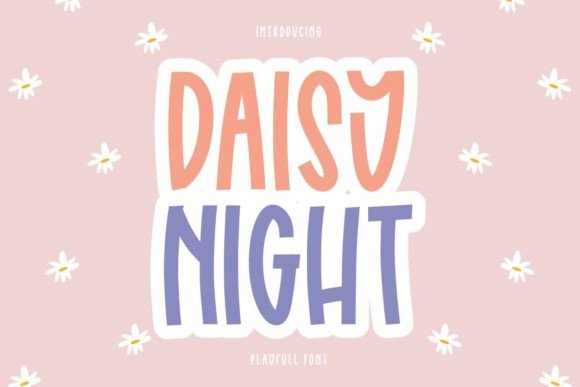
Daisy Night Font: Add a Touch of Whimsy to Your Designs
Are you looking for a font that embodies fun, quirkiness, and authenticity? Look no further than the delightful Daisy Night Font. This enchanting handwritten font is sure to turn any creative idea into a true standout, making it perfect for designers and crafters who want to add a touch of whimsy to their projects.
The Charm of Daisy Night Font
Daisy Night Font is a one-of-a-kind, handwritten font that exudes a childlike playfulness that’s hard to resist. Its unique and quirky design makes it an excellent choice for a wide range of creative projects, from kids’ party invitations and school materials to craft projects and digital designs. With Daisy Night Font, you can add a dash of personality to your work and make it truly unforgettable.
Perfect for Kids and School Projects
One of the best things about Daisy Night Font is its suitability for kids and school projects. Whether you’re a teacher looking for a fun and engaging way to present lesson materials or a parent creating a craft project with your child, this font is sure to delight. Its playful and carefree design makes it perfect for:
- Kids’ party invitations and decorations
- School project posters and presentations
- Handmade craft projects, such as cards and gift tags
- Children’s book illustrations and designs
Get Creative with Daisy Night Font
Daisy Night Font is incredibly versatile, making it easy to use in a wide range of creative projects. Here are some ideas to get you started:
- Use it to create eye-catching posters and flyers for kids’ events
- Add a touch of whimsy to your digital designs, such as social media graphics and blog posts
- Make your own custom stationery, complete with fun and colorful fonts
- Design unique and personalized gifts, such as mugs and tote bags
Why Choose Daisy Night Font?
So why choose Daisy Night Font over other fonts? Here are just a few reasons:
- Unique and quirky design: Daisy Night Font has a one-of-a-kind design that’s sure to stand out from the crowd.
- Childlike playfulness: This font embodies a carefree and playful spirit that’s perfect for kids and school projects.
- Authentic and handmade feel: Daisy Night Font has a genuine, handwritten feel that’s perfect for craft projects and digital designs.
- Easily readable: Despite its playful design, Daisy Night Font is easy to read and understand, making it perfect for a wide range of applications.
Tips for Using Daisy Night Font
Here are a few tips for getting the most out of Daisy Night Font:
- Use it sparingly: While Daisy Night Font is fun and playful, it can be overwhelming if used too much. Use it sparingly to add a touch of whimsy to your designs.
- Pair it with other fonts: Daisy Night Font pairs well with other fonts, such as bold and sans-serif fonts. Experiment with different combinations to find the perfect look for your project.
- Experiment with colors: Daisy Night Font looks great in a wide range of colors, from bright and bold to pastel and soft. Experiment with different colors to find the perfect look for your project.
Daisy Night Font is a unique and enchanting handwritten font that’s perfect for designers and crafters who want to add a touch of whimsy to their projects. With its childlike playfulness, authentic and handmade feel, and easily readable design, this font is sure to turn any creative idea into a true standout. Whether you’re working on a kids’ project, a craft project, or a digital design, Daisy Night Font is sure to delight. So why not give it a try and see the magic for yourself?